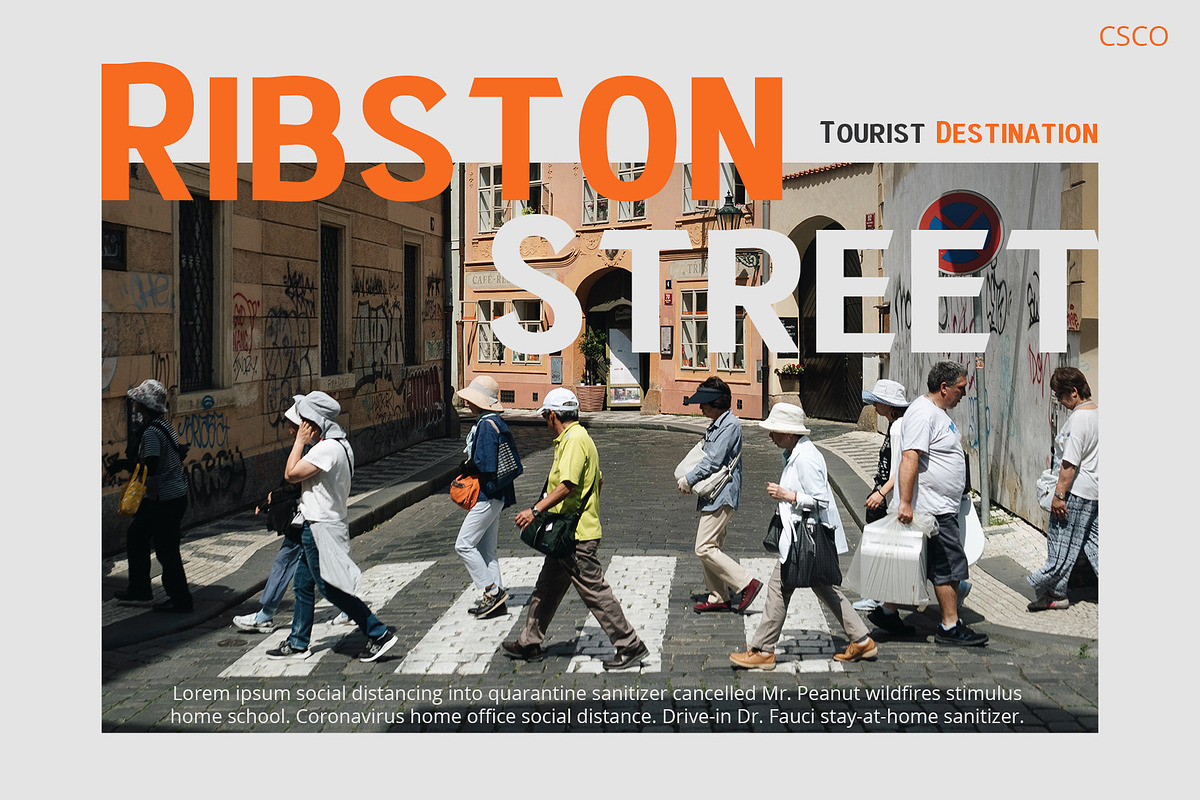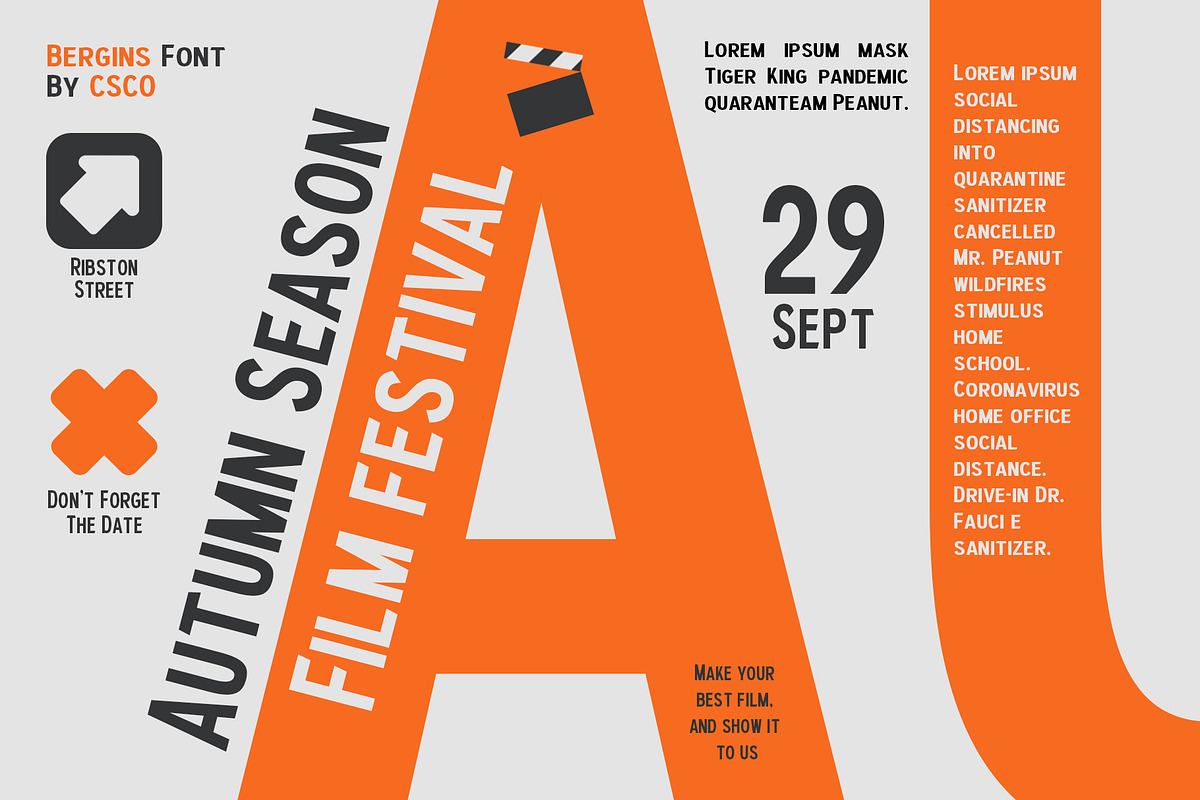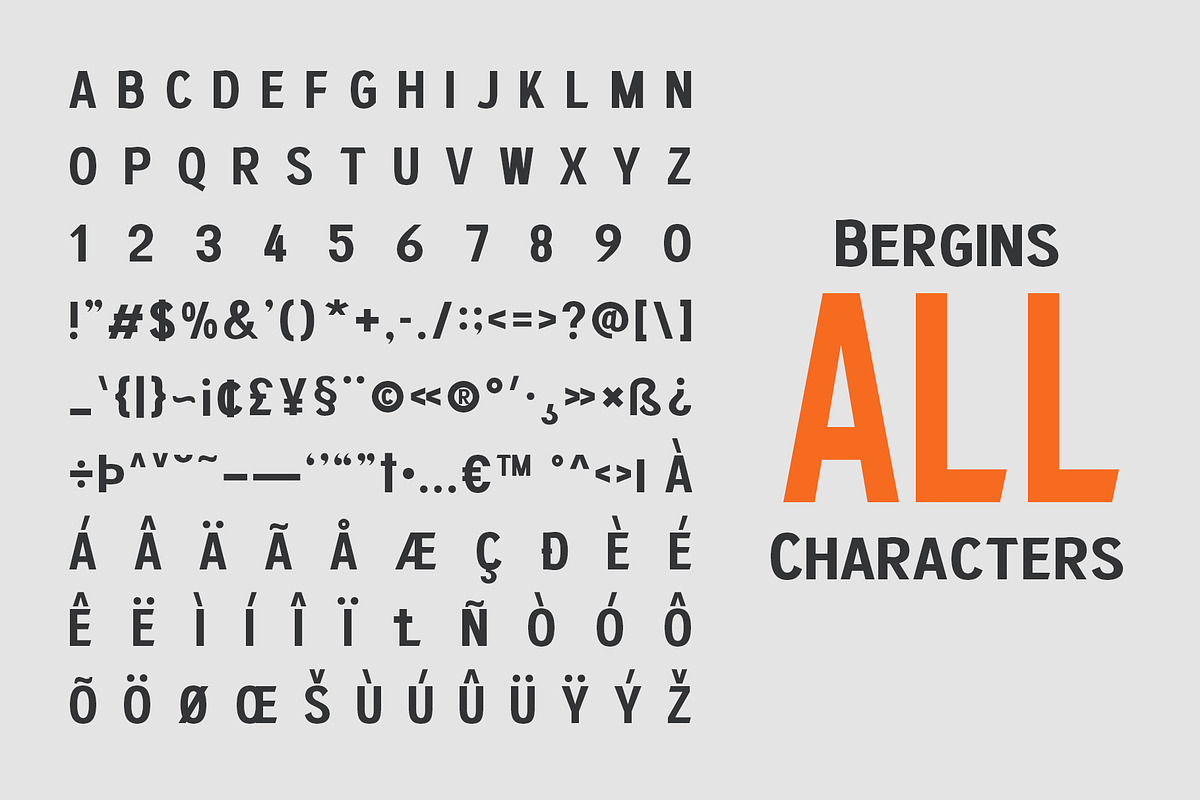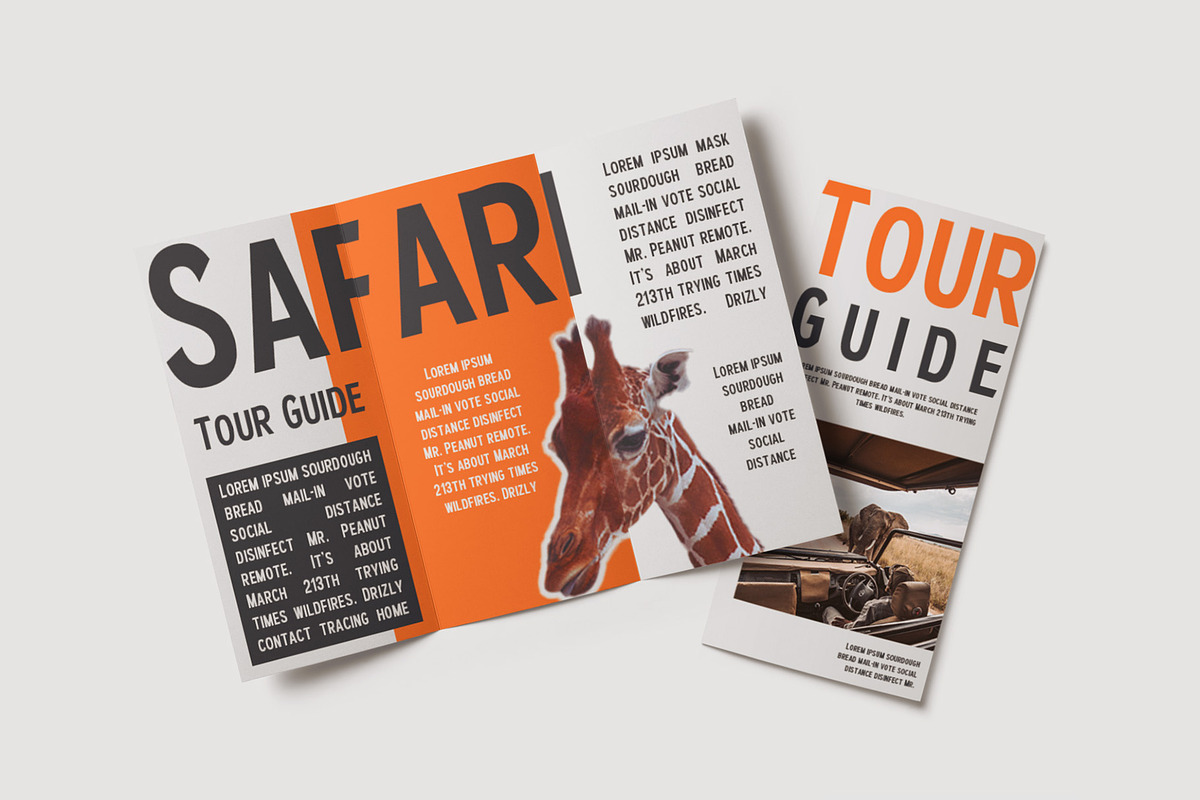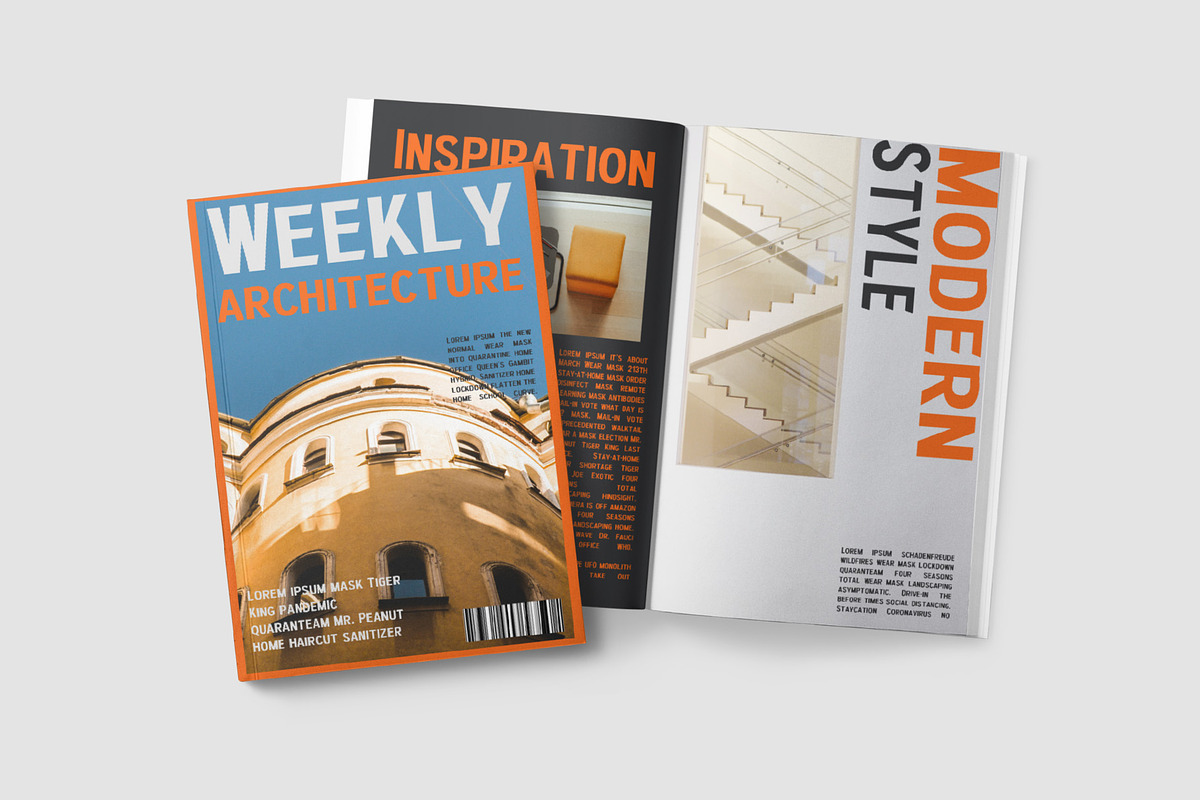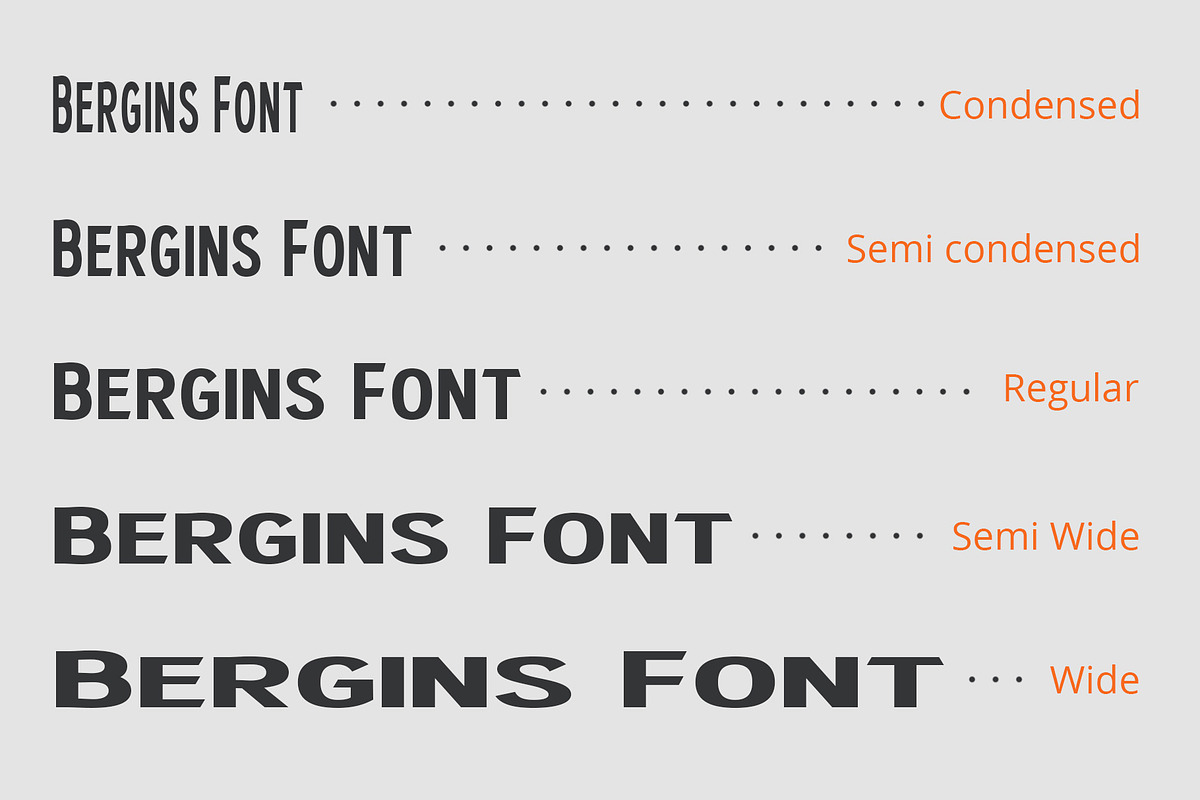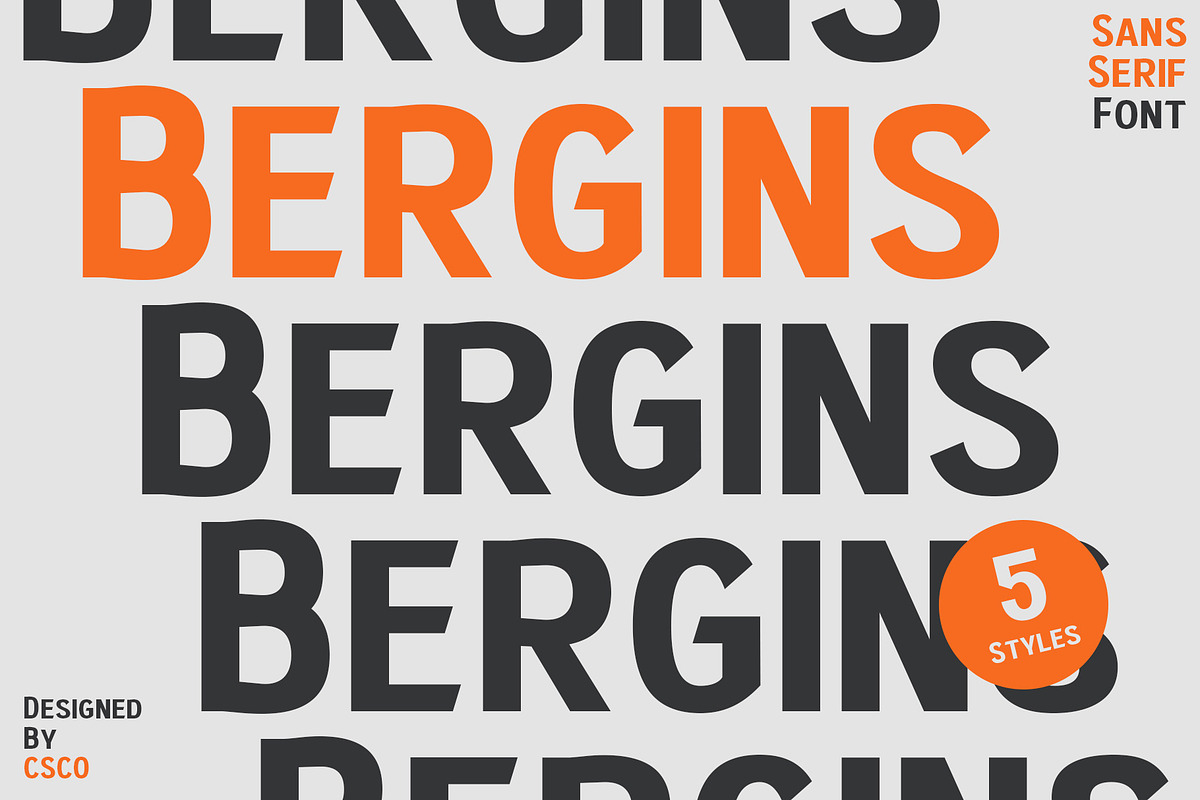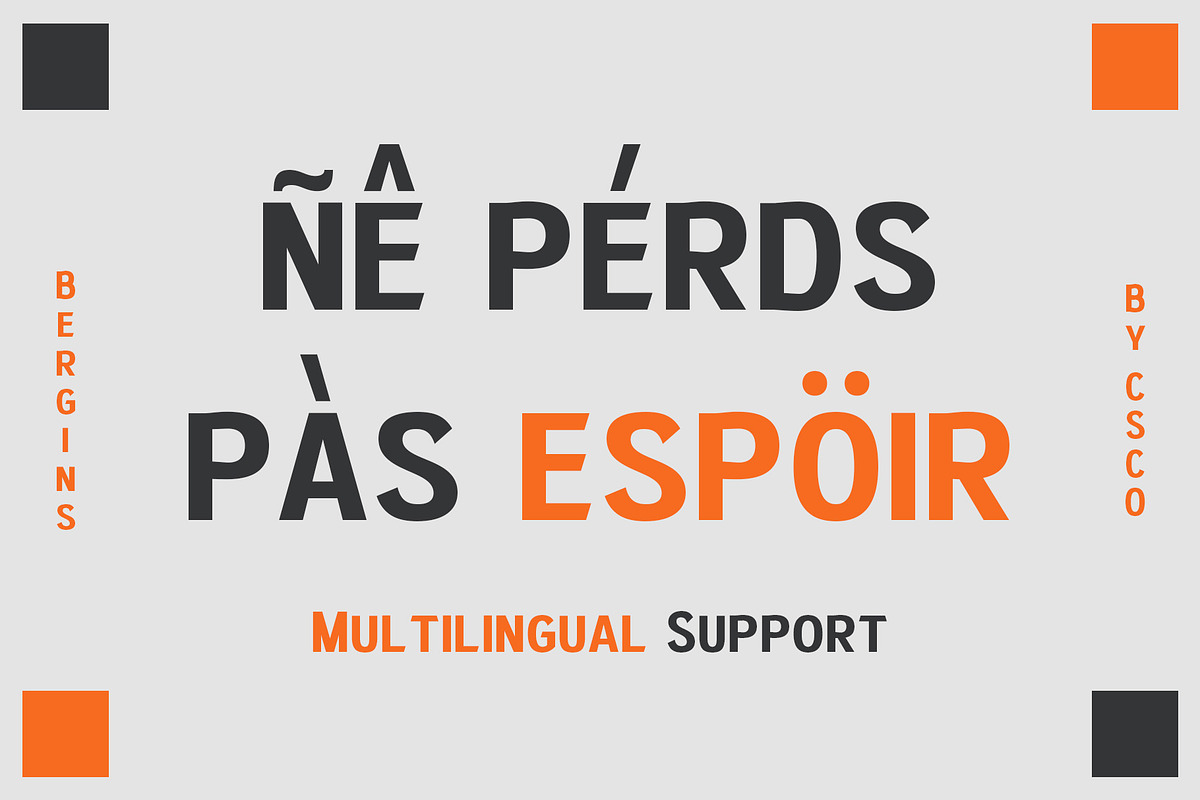
Bergins – Grotesque Sans Serif
Discover Bergins – Grotesque Sans Serif
Modern Aesthetic Initially, Bergins captivates with its modern grotesque aesthetic. Designed meticulously, it embodies a fresh and contemporary vibe, ensuring visual appeal and innovation in design.
Clarity and Precision Additionally, clarity reigns in its design. Every stroke and curve in Bergins speaks precision, offering optimal readability across various platforms and sizes, facilitating diverse applications.
Versatility Unleashed Moreover, Bergins exhibits remarkable versatility. It seamlessly integrates with a multitude of design layouts, from digital platforms to printed materials, enhancing adaptability and usability.
Ideal for Contemporary Needs Importantly, it meets the demands of contemporary design. Bergins adeptly balances tradition and modernity, making it apt for current creative needs and expressions, bolstering its relevance.
Ease and Accessibility Furthermore, Bergins is crafted for ease. Its straightforward design simplifies the creative process, making it accessible even for those new to design, broadening its appeal and utility.
Concluding Thoughts In conclusion, Bergins is not just a typeface; it’s a cornerstone for modern, grotesque, sans serif designs, promising utility, and elegance in every stroke.
- Bergins Regular
- Bergins Condensed
- Bergins SemiCondensed
- Bergins Wide
- Bergins SemiWide